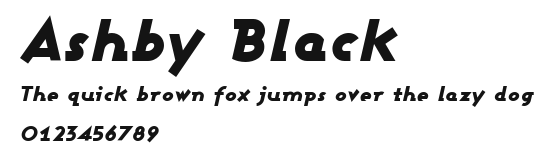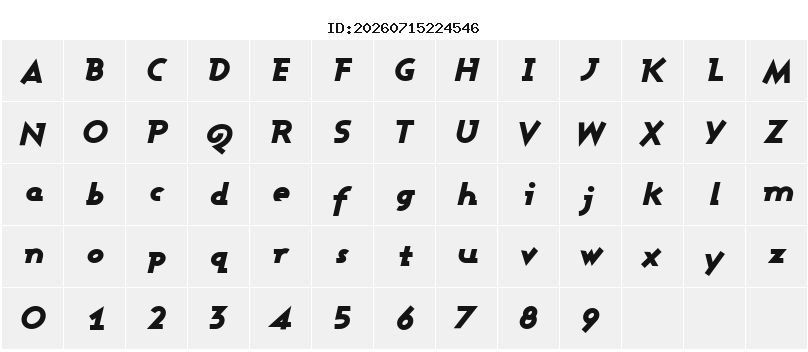
• Font Name: Ashby Black
Ashby Black.ttf is a modern, elegant sans-serif font designed for ultimate readability and visual harmony. Perfect for branding, headlines, web design, and print materials.